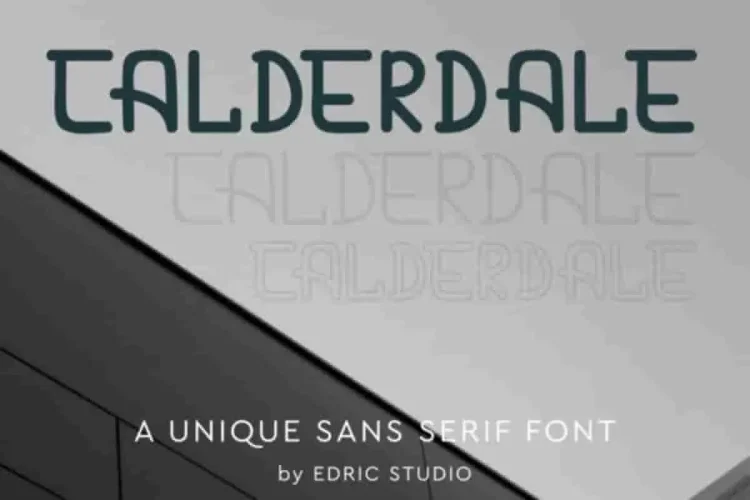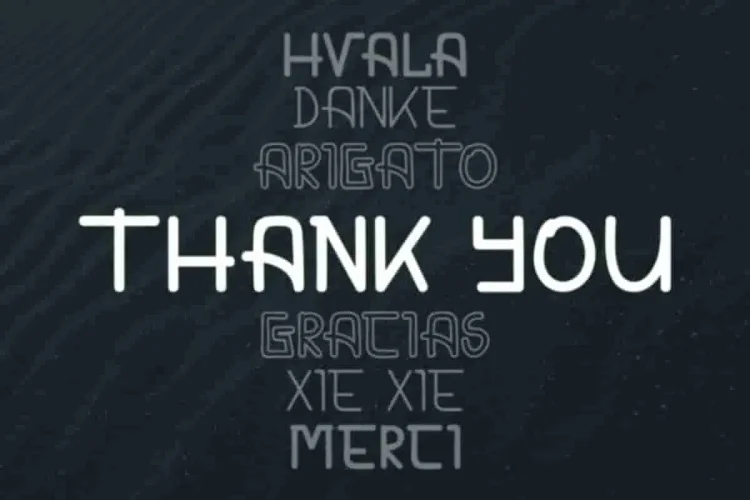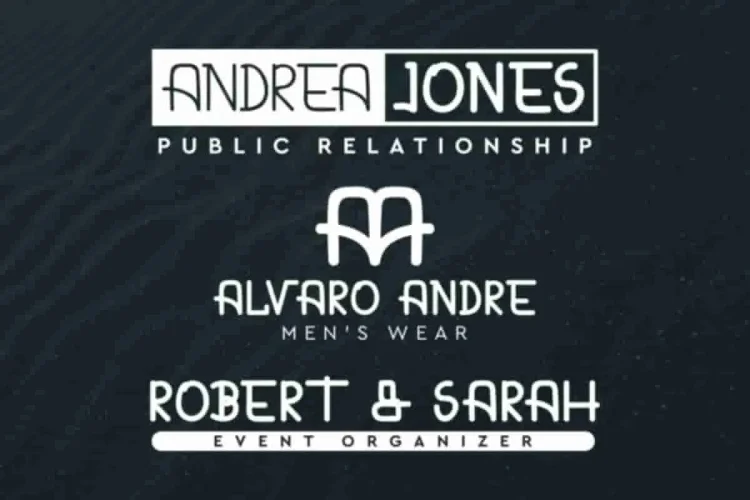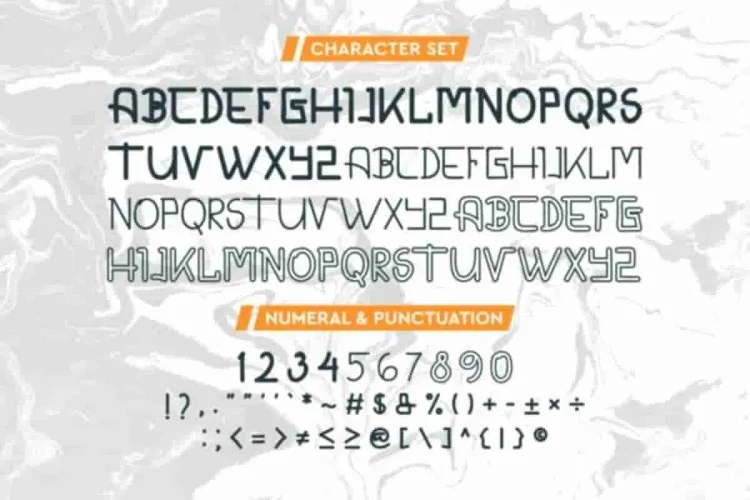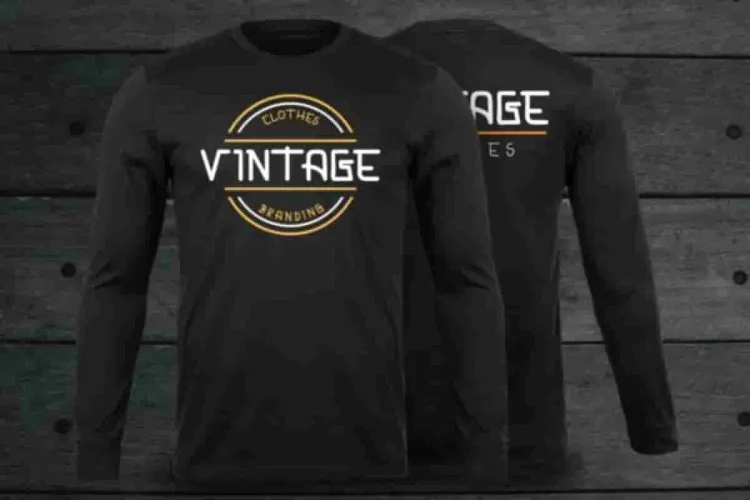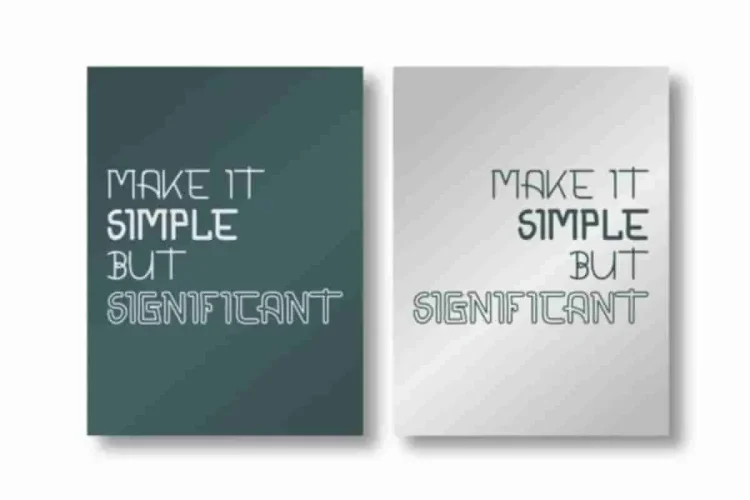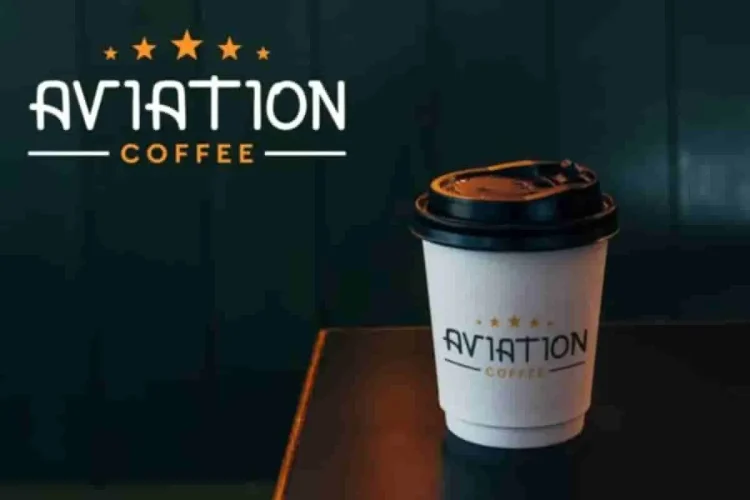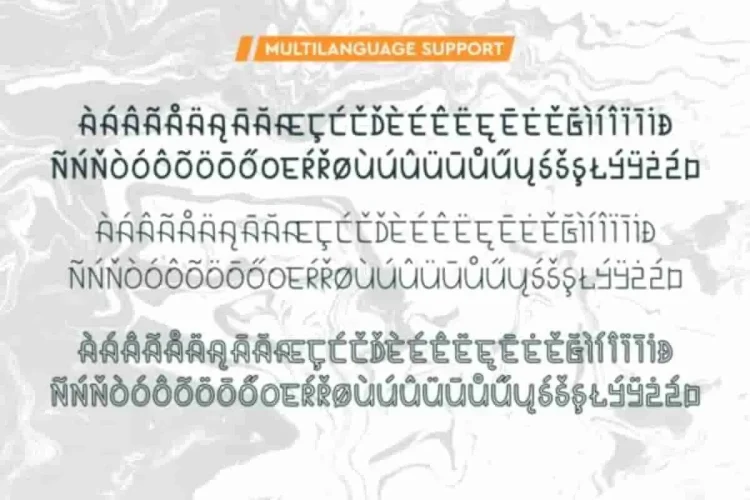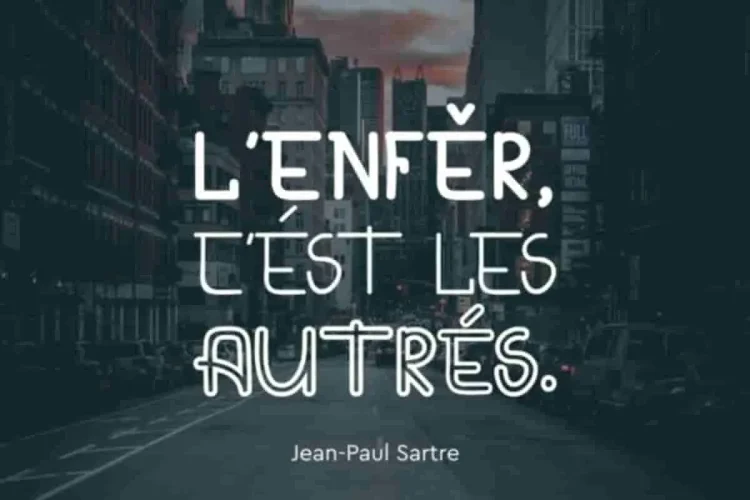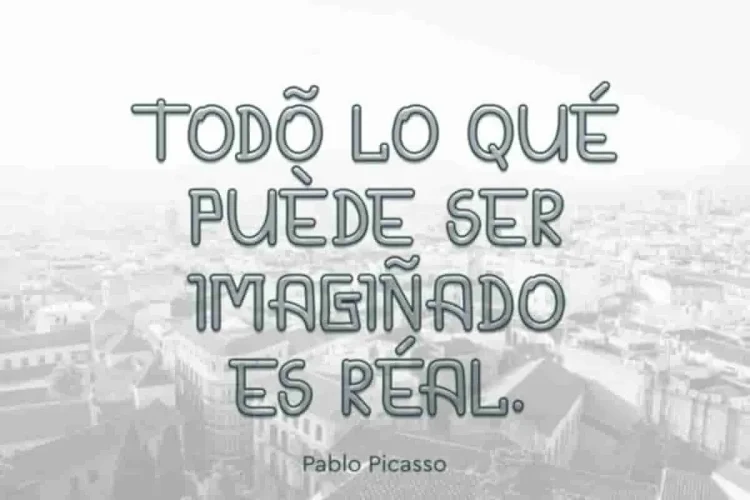
CALDERDALE Sans Serif Font
Back in 2019, Edric Studio proudly introduced: CALDERDALE Font
CALDERDALE is a sans serif display family font. It features modern and stylish glyphs. This sans serif display font features clean lines, unique curves, and a modern stencil style that’s perfect for making a statement.
Whether you’re designing for print or digital, CALDERDALE brings a bold, futuristic look that instantly grabs attention. Because of this variety, CALDERDALE is perfect for branding, headline, logo (with extended license), stationery, business card, signage, flyer, brochure etc.
Not only is CALDERDALE highly readable, but it also comes in three versatile styles:
• Regular – for a solid, bold look
• Light – for a sleek, minimal aesthetic
• Outline – for eye-catching and creative display use
In addition to its clean design, CALDERDALE features three distinct styles — Regular, Light, and Outline — CALDERDALE lets you build strong and clear visual hierarchy in any layout. Even better, this font supports multiple international languages, so it’s ideal for global use.
So, if you’re looking for a unique, modern sans serif font with stencil vibes and multi-style flexibility — CALDERDALE is your go-to choice!